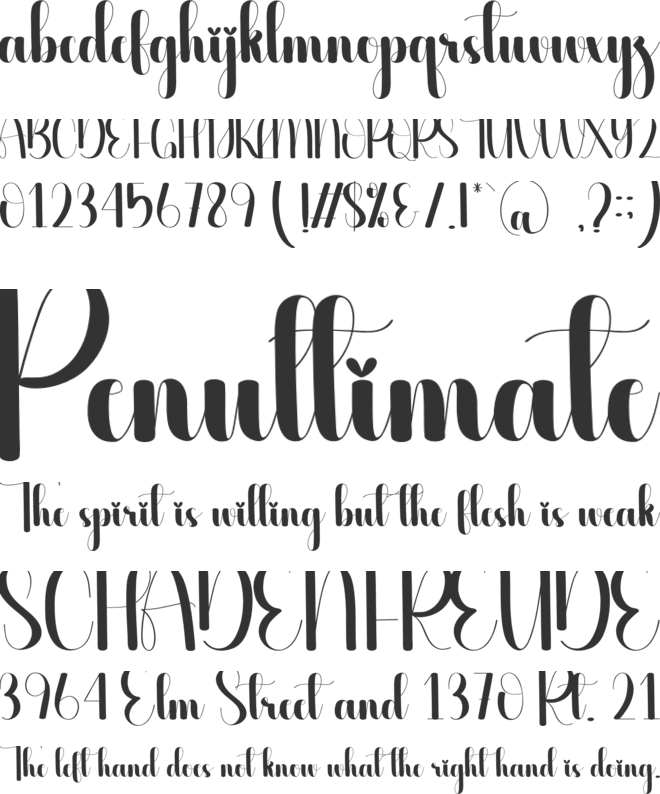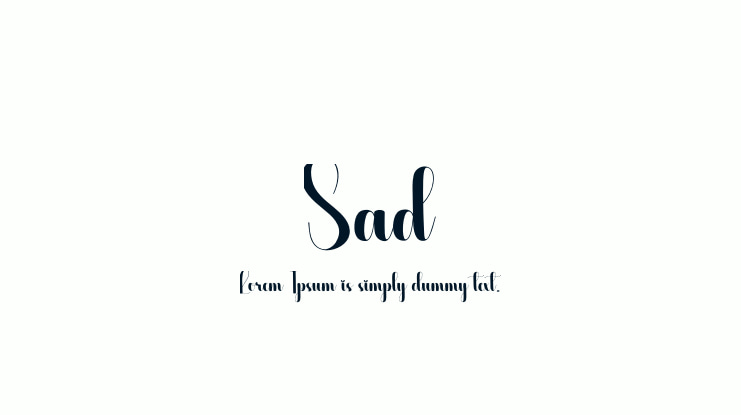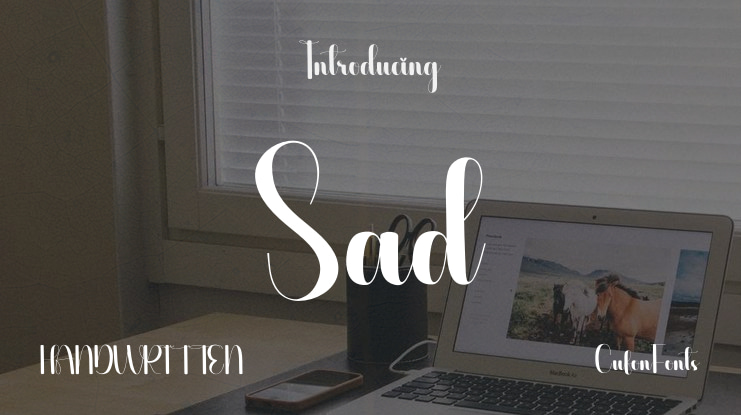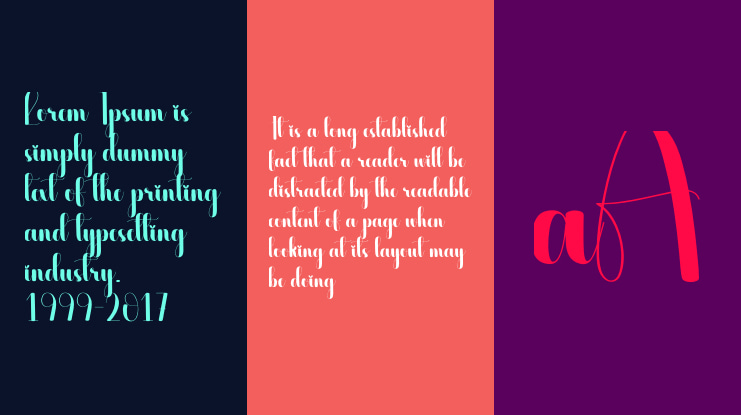
Sad Font
We offer special, creative products designed to provide you with an extraordinary experience. Our latest style fonts are ideal for wall displays, wedding invitations, social media post logos, advertisements, product packaging, product designs, labels, photography watermarks, stationery, and any project requiring elegant handwriting.